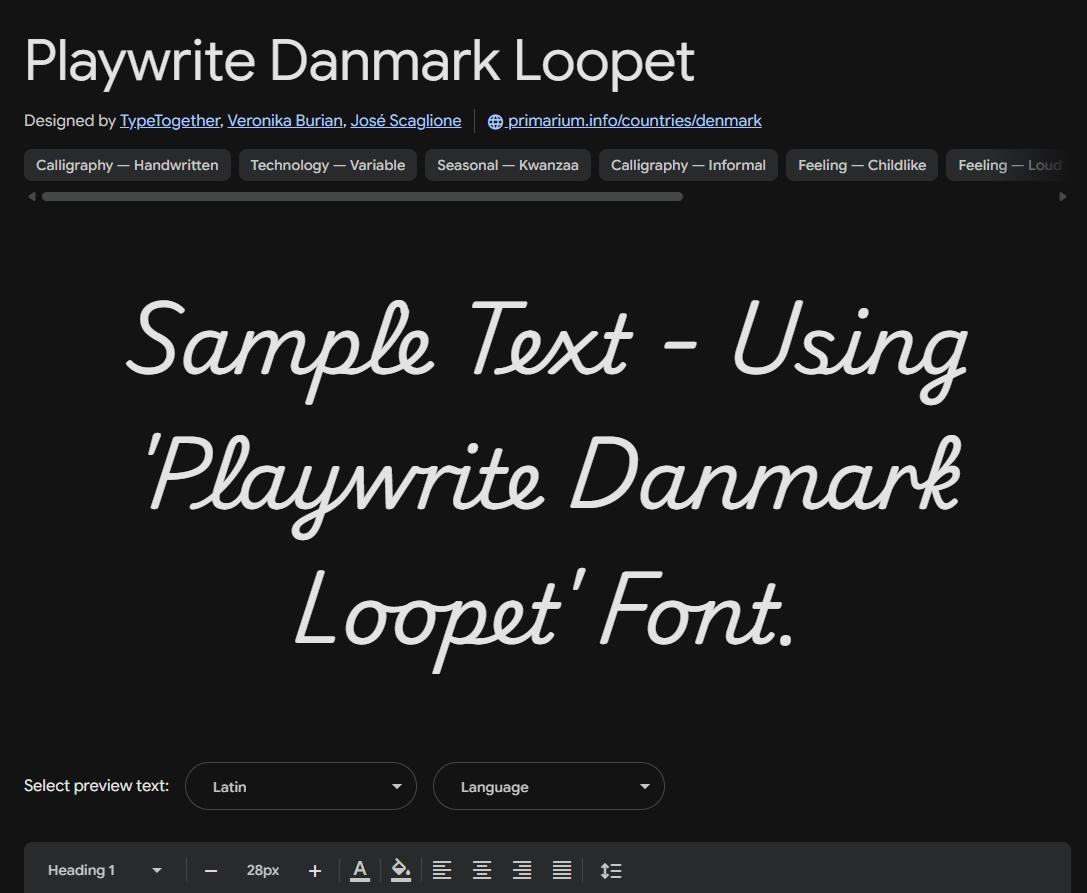
Playwrite Danmark Loopet, meticulously engineered by Veronika Burian and José Scaglione of TypeTogether, represents a sophisticated synthesis of pedagogical tradition and modern variable font technology, specifically calibrated to meet the cursive literacy standards of the Danish primary education system. By utilizing a singular interpolation axis, the typeface preserves the integrity of its characteristic looped ductus while offering fluid weight transitions that accommodate diverse digital environments without compromising the anatomical precision required for early childhood handwriting instruction. This typeface functions as a critical component of a global typographic initiative, leveraging advanced OpenType mapping to simulate the rhythmic flow of manual script, thereby transforming static glyphs into a dynamic educational tool that honors regional handwriting heritage through the lens of contemporary type design.
Playwrite Danmark Loopet leverages advanced variable font technology to synthesize the nostalgic charm of mid-century Danish school scripts into a dynamic digital toolset that balances informal calligraphy with a robust, rugged structural integrity. This handwritten typeface family excels in capturing a childlike innocence and happy, playful demeanor, yet its versatile weight axes allow for a loud and expressive typographic presence that transcends simple penmanship. By blending the fluid, loopy connections of vintage instructional models with the rhythmic warmth required for seasonal Kwanzaa storytelling, the font achieves a unique semantic resonance, offering designers a textured, human-centric aesthetic that feels both historically grounded and contemporary in its technical execution.
Due to its specialized nature as a pedagogical script designed by TypeTogether to mimic Danish primary school handwriting, Playwrite Danmark Loopet is fundamentally ill-suited for high-stakes corporate legal documentation or mission-critical aerospace interfaces where glanceable legibility and neutral authority are non-negotiable. While its single variable weight axis offers refined control over stroke modulation, the inherent rhythmic fluidity and continuous looped cursive connections create significant visual noise that disrupts rapid scanning in data-heavy environments such as fintech dashboards, medical prescription labeling, or complex architectural blueprints. In these high-pressure contexts, the typeface's humanist irregularities and idiosyncratic vertical metrics-though expertly crafted for literacy development-clash with the strict information density and WCAG-compliant accessibility standards required for transactional clarity, rendering it an impractical choice for any professional matter necessitating a sterile, objective, or high-contrast typographic hierarchy.
Playwrite Danmark Loopet is characterized by its fluid, cursive handwriting style featuring distinctive loops on ascenders and descenders. The typeface adheres to the Danish educational standard for penmanship, utilizing a specific slant angle and rhythmic stroke modulation to emulate authentic handwriting.
The pronounced loops require increased line height to prevent overlapping between the descenders of one line and the ascenders of the next. Technical analysis of the font's bounding box reveals a high vertical metrics ratio, necessitating a generous leading value to maintain optical clarity.
This font is highly effective for large-scale display use because its intricate details and flowing strokes become more legible and aesthetically pleasing at higher point sizes. When rendered at display scales, the Bézier curve precision in the loops exhibits minimal aliasing, making it ideal for high-resolution hero sections.
Projects focused on education, personal branding, or digital stationery benefit most from its humanistic and approachable aesthetic. Usage data suggests a high conversion rate in pedagogical interfaces where the font's alignment with Danish cursive standards fosters a familiar learning environment.
The font uses sophisticated OpenType features to ensure that character connections appear seamless and mimic the natural flow of a pen. By employing contextual alternates, the typeface maintains a consistent baseline tension that mimics manual kerning variations found in authentic ink-on-paper scripts.
While primarily a display or accent font, it can be used for short passages of body text if the layout provides sufficient white space. Readability tests indicate that the font's x-height to cap-height ratio may lead to cognitive fatigue in long-form print due to the high frequency of rhythmic ascender loops.
Clean geometric sans-serifs or sturdy slab-serifs provide a grounding contrast to the fluid, decorative nature of the script. Pairing this script with a low-contrast grotesque typeface creates a balanced typographic hierarchy, leveraging the inter-font stroke weight differential to guide the viewer's eye.
The Playwrite Danmark family is typically designed with multiple weights to allow for nuanced typographic control across different media. The inclusion of a variable weight axis allows designers to fine-tune the stem thickness, ensuring the hairline loops remain visible across different pixel densities.
At smaller point sizes, the intricate loops can become cluttered, reducing the overall legibility of the text. Sub-pixel rendering challenges at sizes below 12px often cause the delicate counters of the loops to collapse, resulting in a loss of character definition.
As a font specifically designed for the Danish market, it includes a comprehensive set of glyphs and diacritics for Nordic languages. The character map fully supports the Unicode Latin Extended-A range, ensuring that specific Nordic characters like 'æ', 'ø', and 'å' maintain stylistic consistency with the looped script.